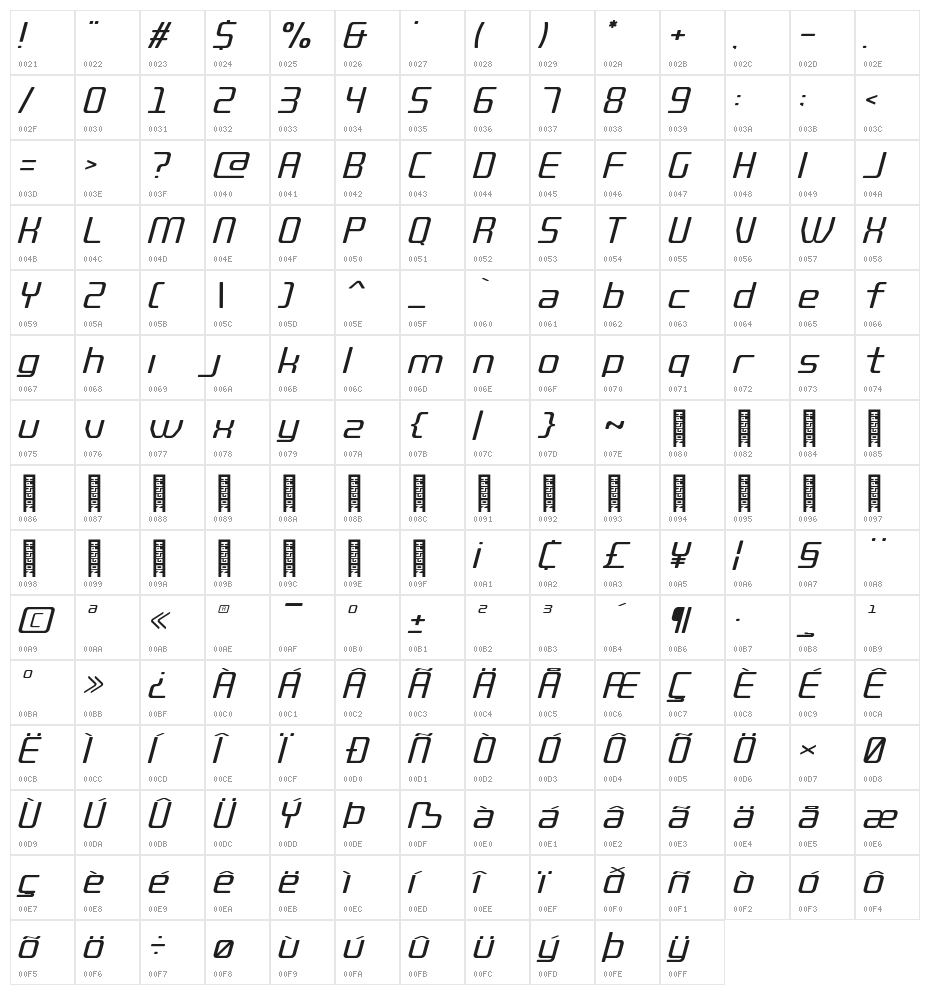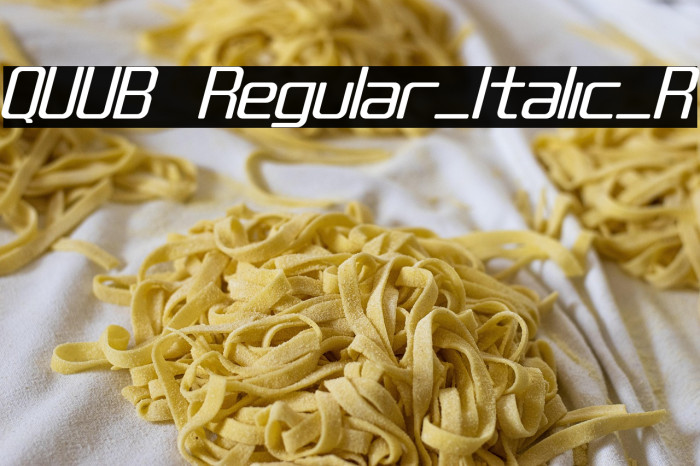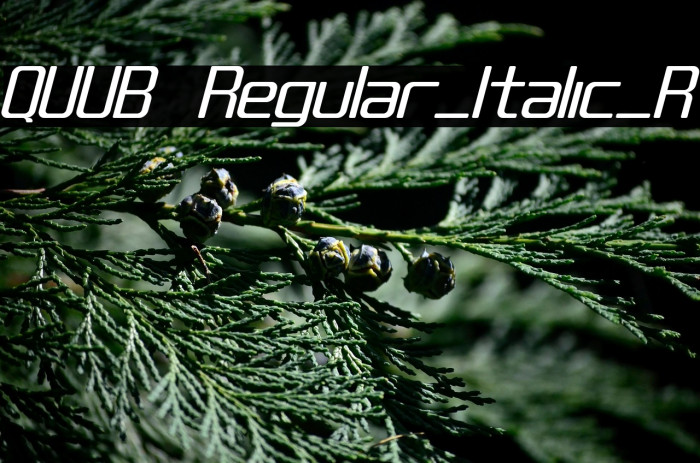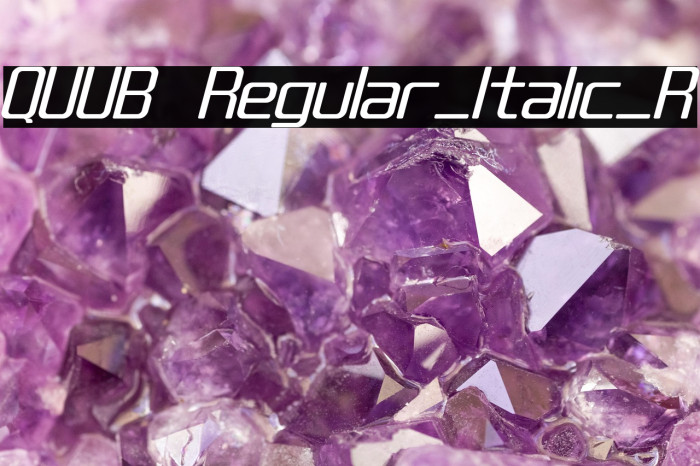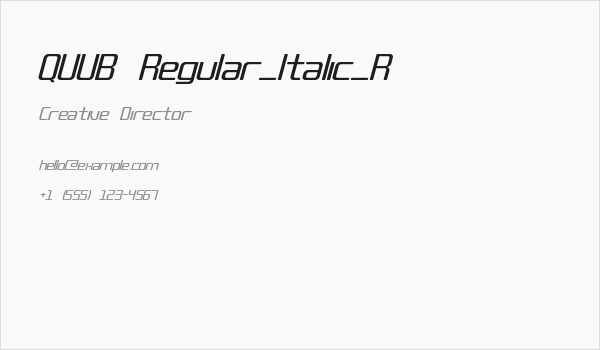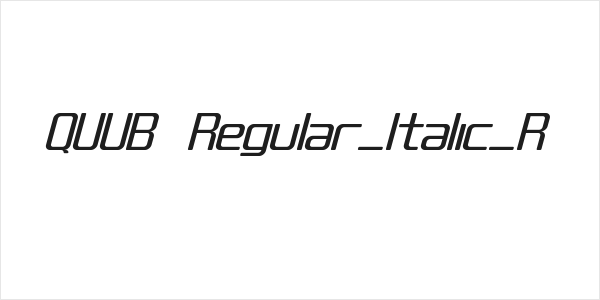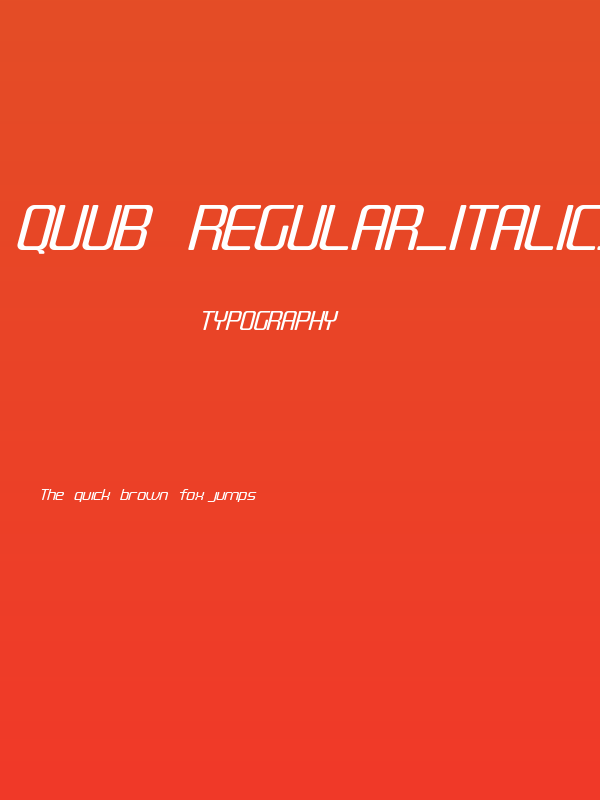
QUUB Regular_Italic_R Font
QUUB Regular_Italic_R Description
This font features a modern, sleek design with a slightly italicized style, giving it a dynamic and forward-leaning appearance. The characters are uniformly structured with rounded edges and consistent line thickness, creating a harmonious and fluid look. The uppercase and lowercase letters maintain a cohesive style, with a slight slant that adds a sense of motion. The numerals and special characters follow the same design principles, ensuring a balanced and unified appearance across all glyphs. The overall aesthetic is contemporary and versatile, suitable for various design applications.
| Use Case | Headlines, Logos, Digital interfaces |
| Proposed Projects | Ideal for tech branding, modern advertising, digital interfaces, and futuristic design projects. |